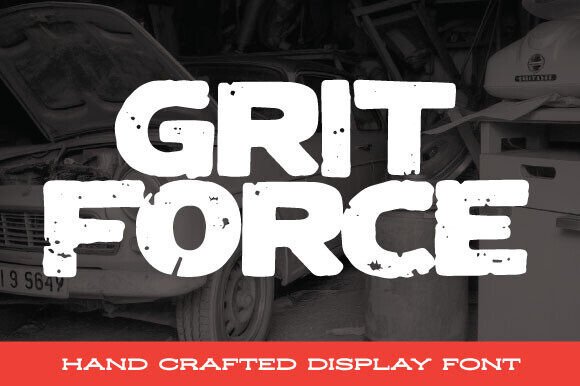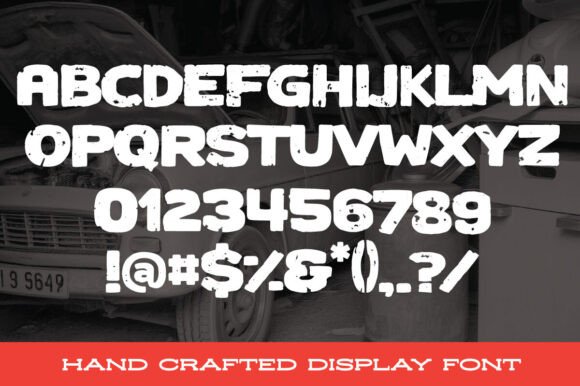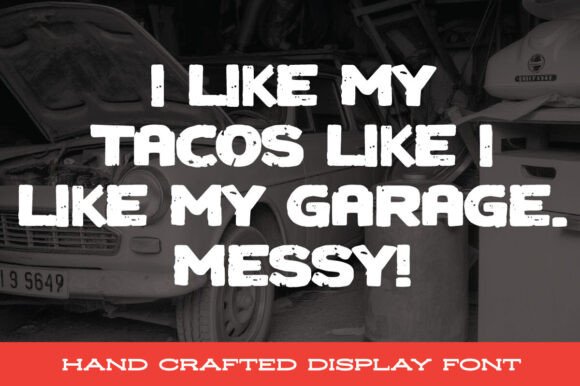
Grit Force Font: Bold Display Font for Powerful Logo Design
About the Grit Force Font
Explore the possibilities with Grit Force Font, a font that offers both beauty and functionality. Grit Force is a powerhouse of bold, distressed typography, built for impact and attitude. With its thick, heavy letterforms and rugged texture, this font exudes strength, resilience, and raw energy. Perfect for branding, posters, sports designs, and industrial-style graphics, Grit Force commands attention with its weathered yet powerful aesthetic. Whether you’re creating a bold statement or reinforcing a tough, no-nonsense look, this font delivers unshakable grit and force.
Grit Force thrives in large-scale applications like headlines, posters, and logos where its powerful presence can dominate. It’s ideal for brands emphasizing strength, ruggedness, or rebellion—think automotive, sportswear, or industrial products. Avoid using it for body copy or UI elements; its heavy weight and texture hinder readability in smaller sizes or extended text.
Pairing Grit Force effectively requires a contrasting typeface to balance its boldness. A clean sans-serif like Montserrat or a geometric sans-serif such as Futura would provide a modern, readable counterpoint. For a more vintage feel, consider pairing it with a slightly distressed serif like Playfair Display.
The font’s core personality is undeniably bold and assertive, conveying a sense of raw power and uncompromising attitude. Its distressed texture adds a layer of grit and authenticity, making it perfect for projects needing a forceful, impactful aesthetic.
Grit Force Font Usage Examples
Grit Force Font Example